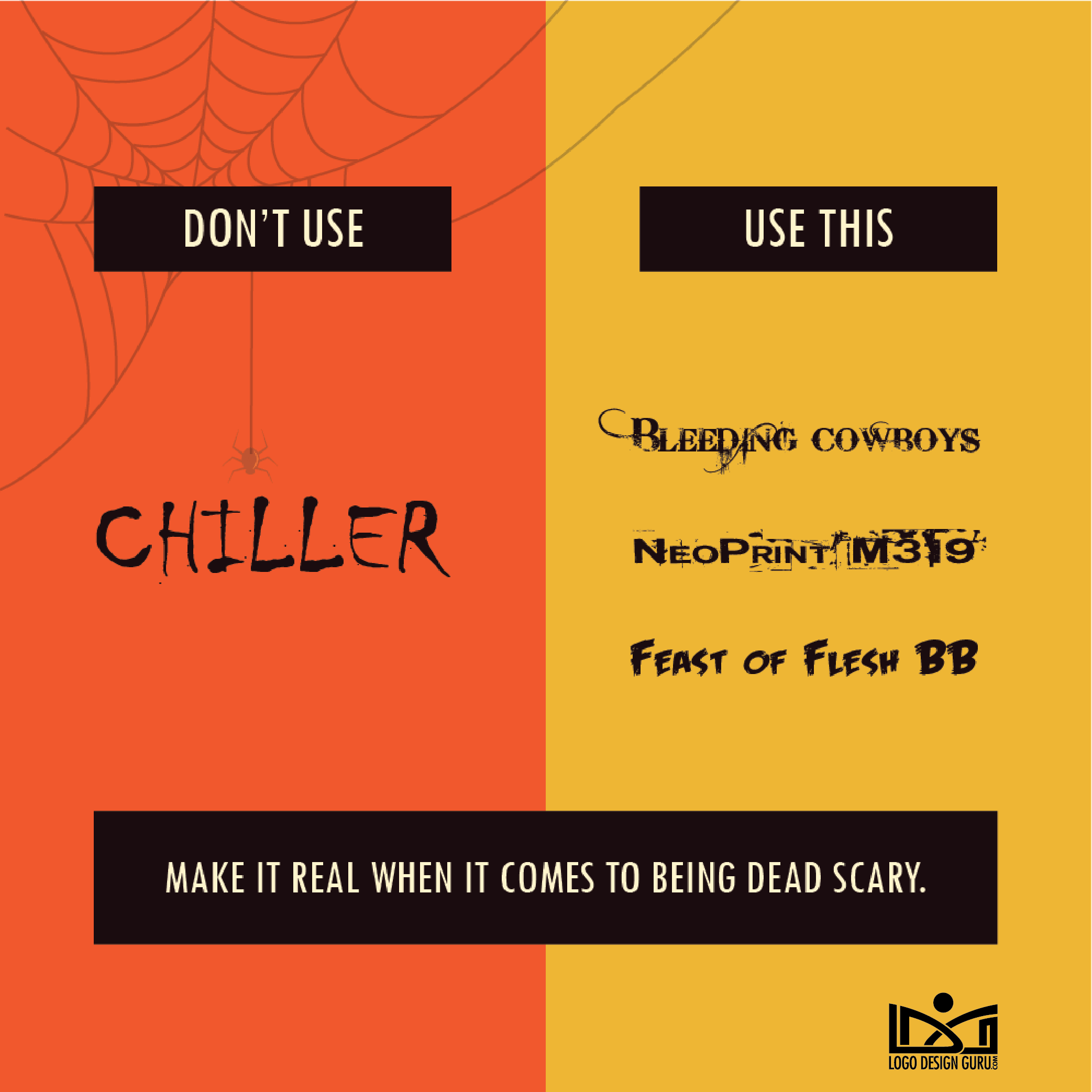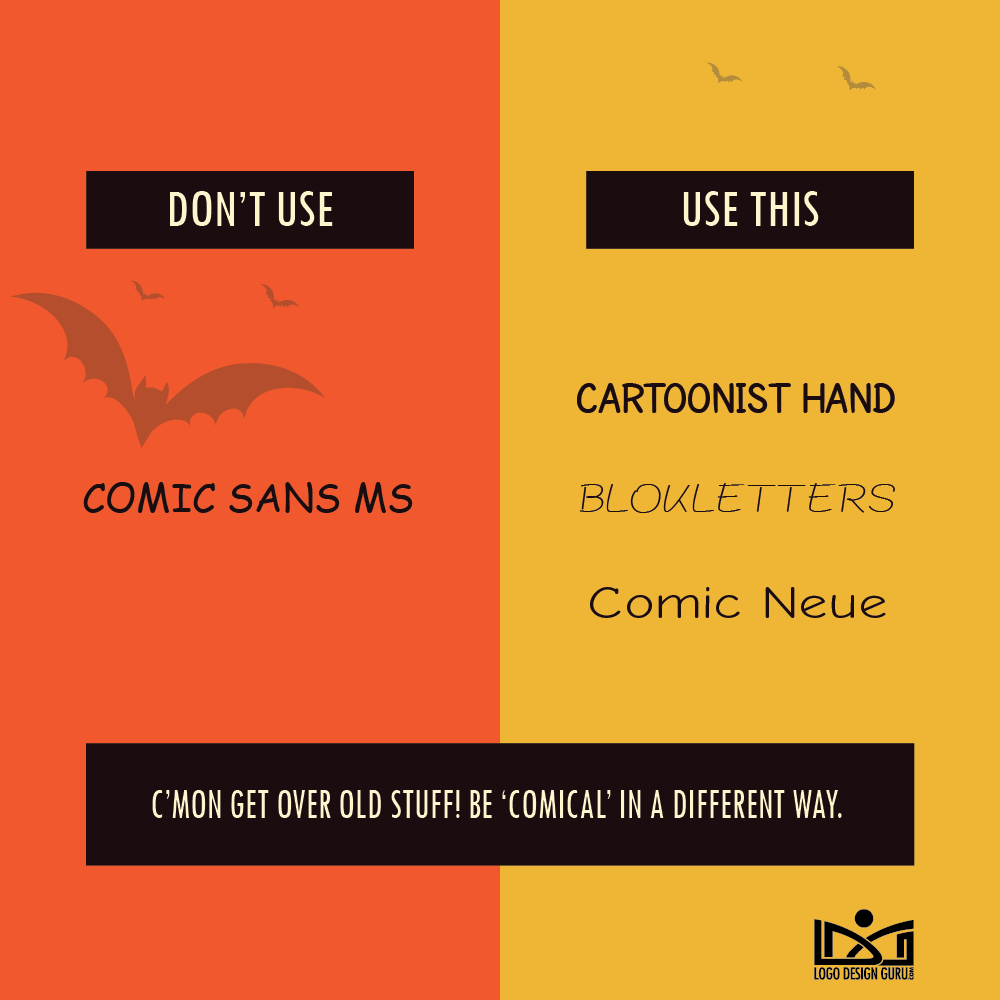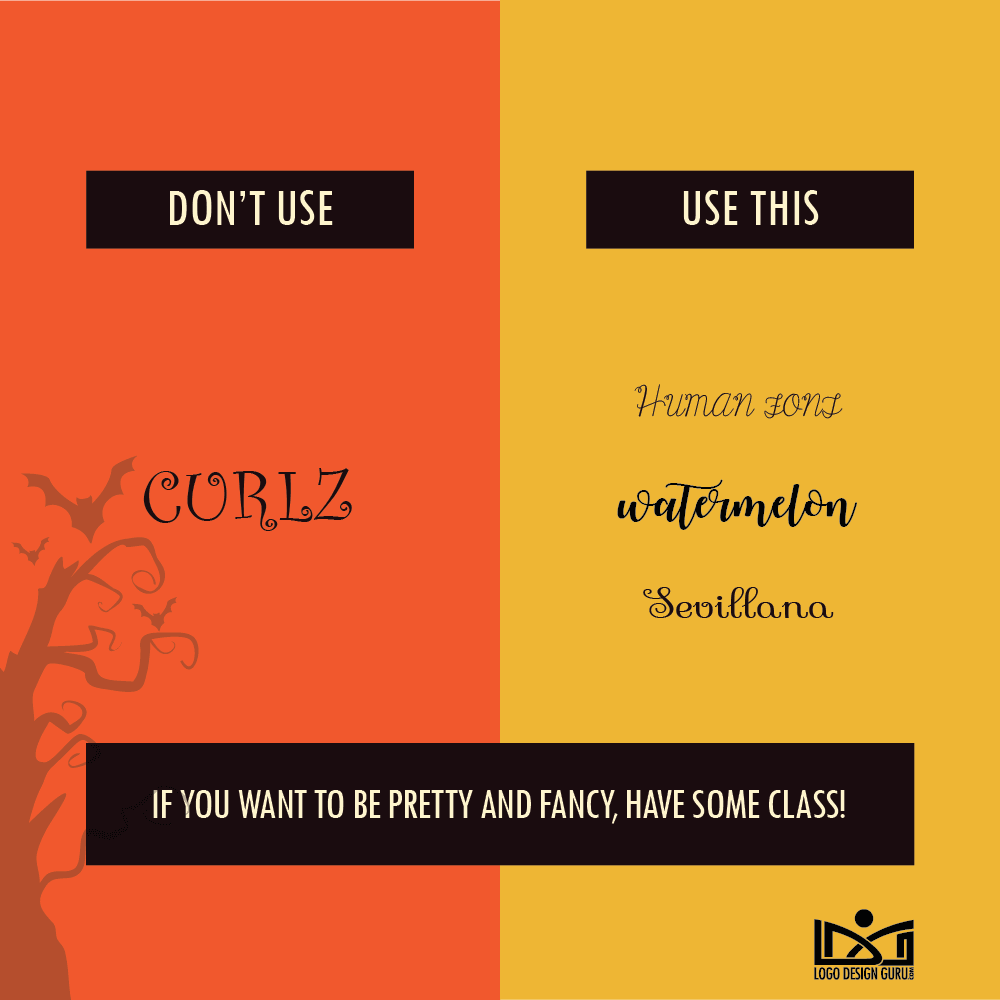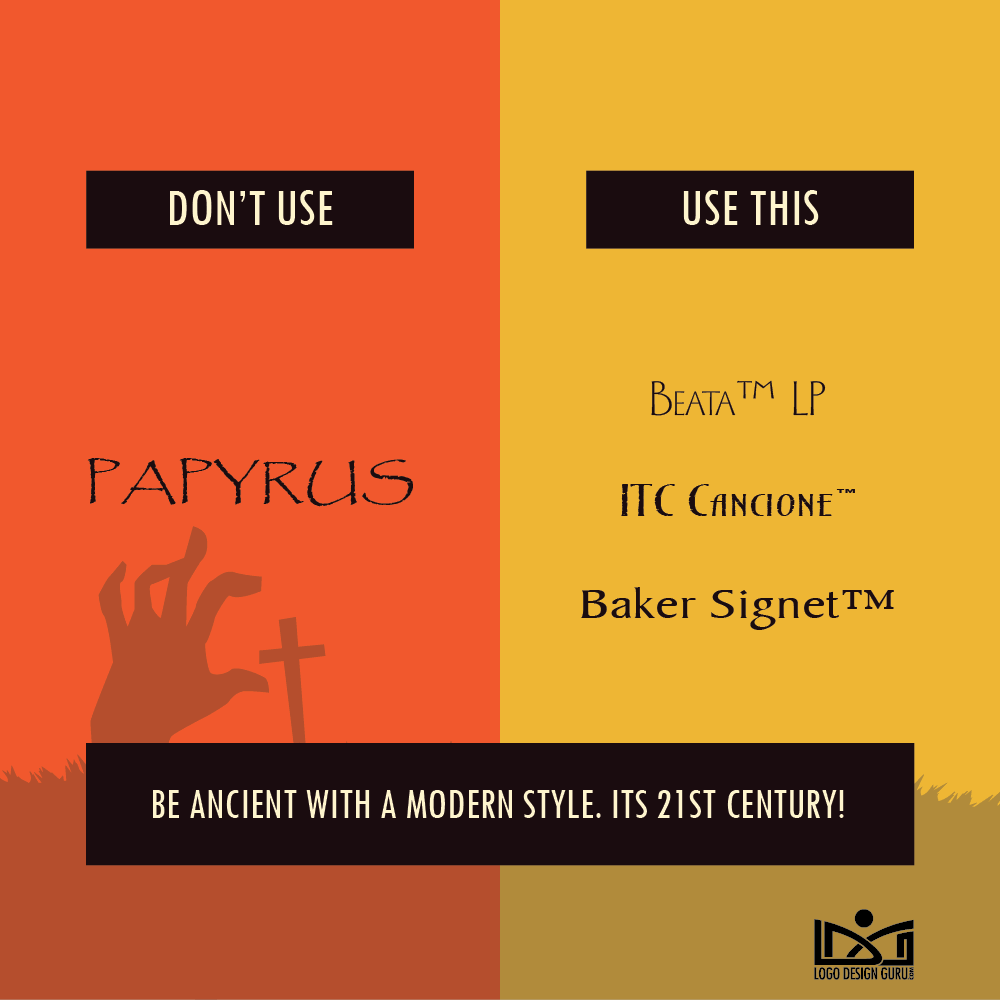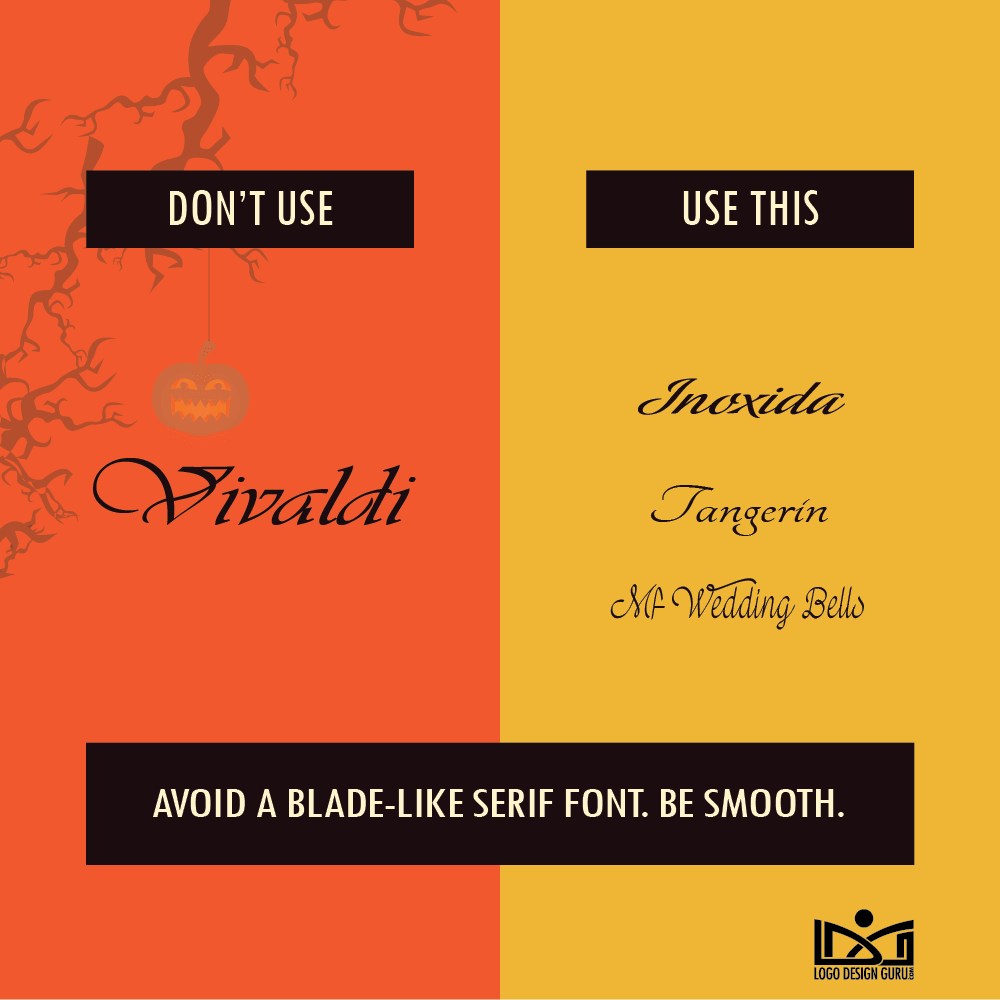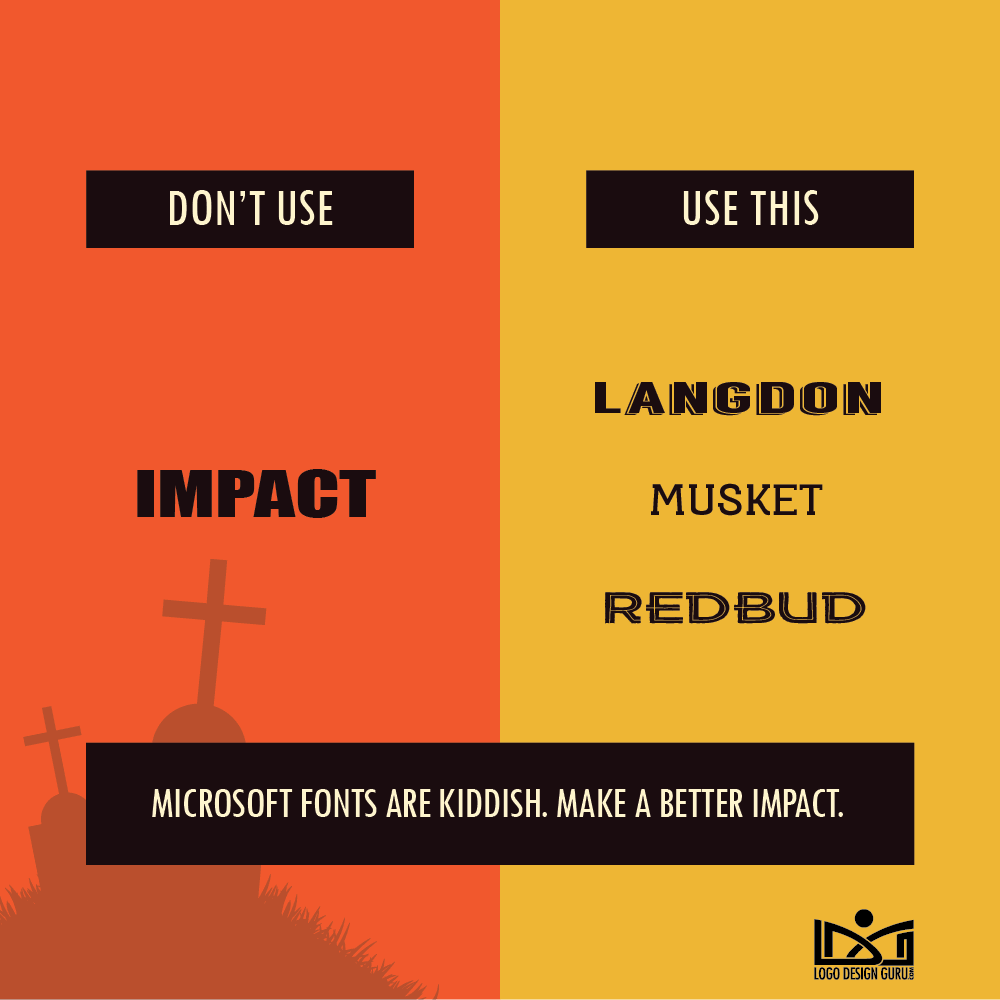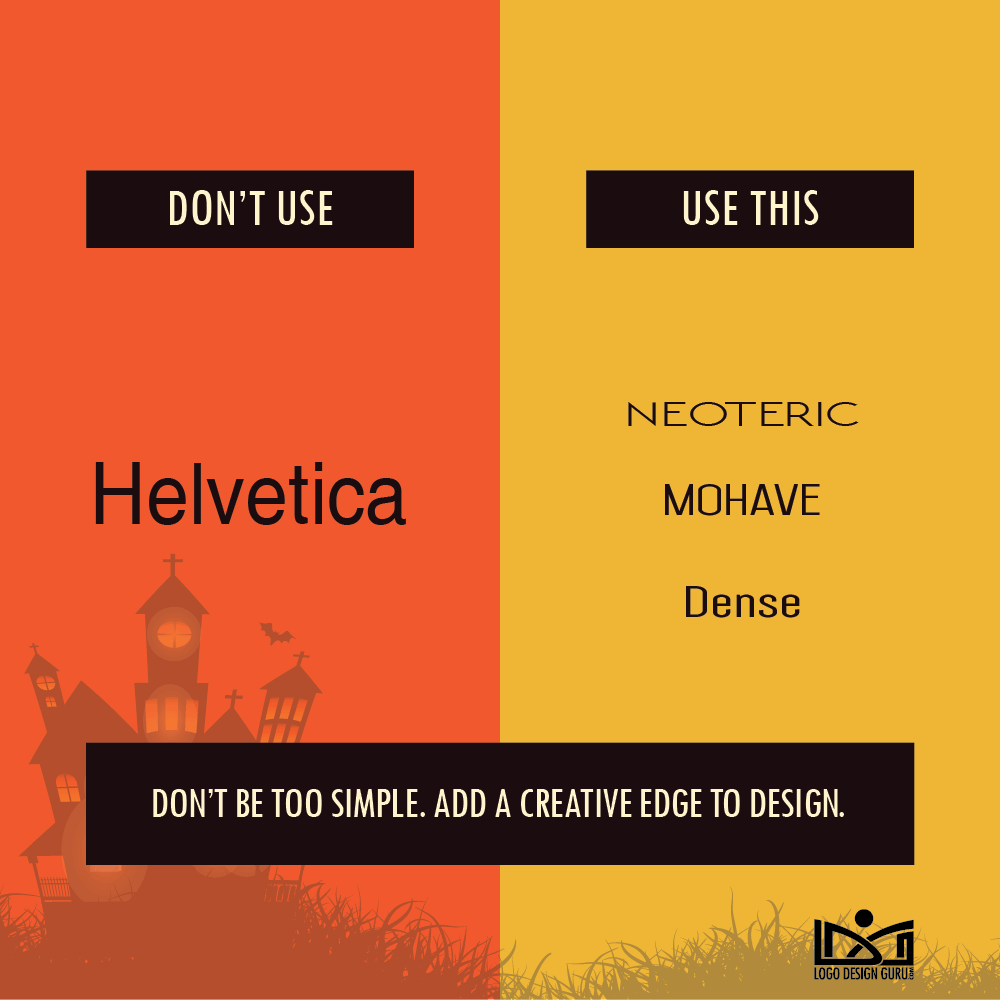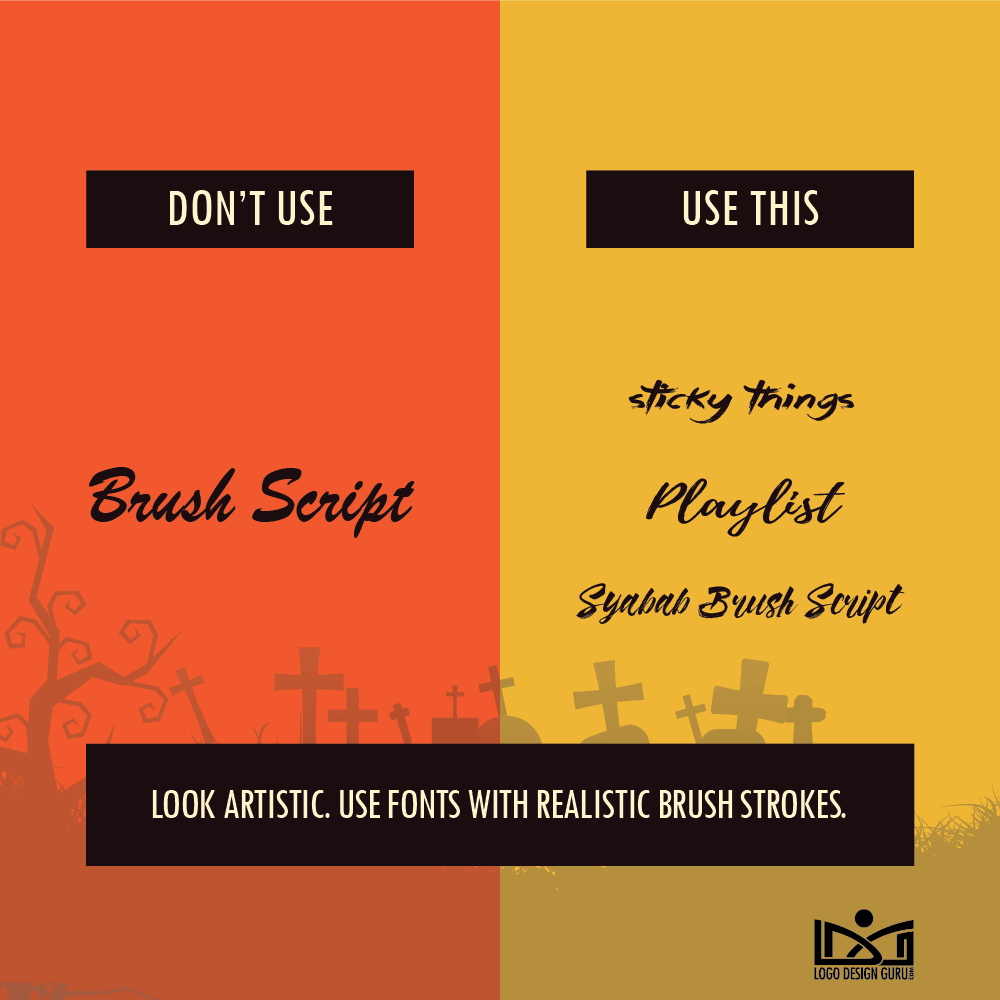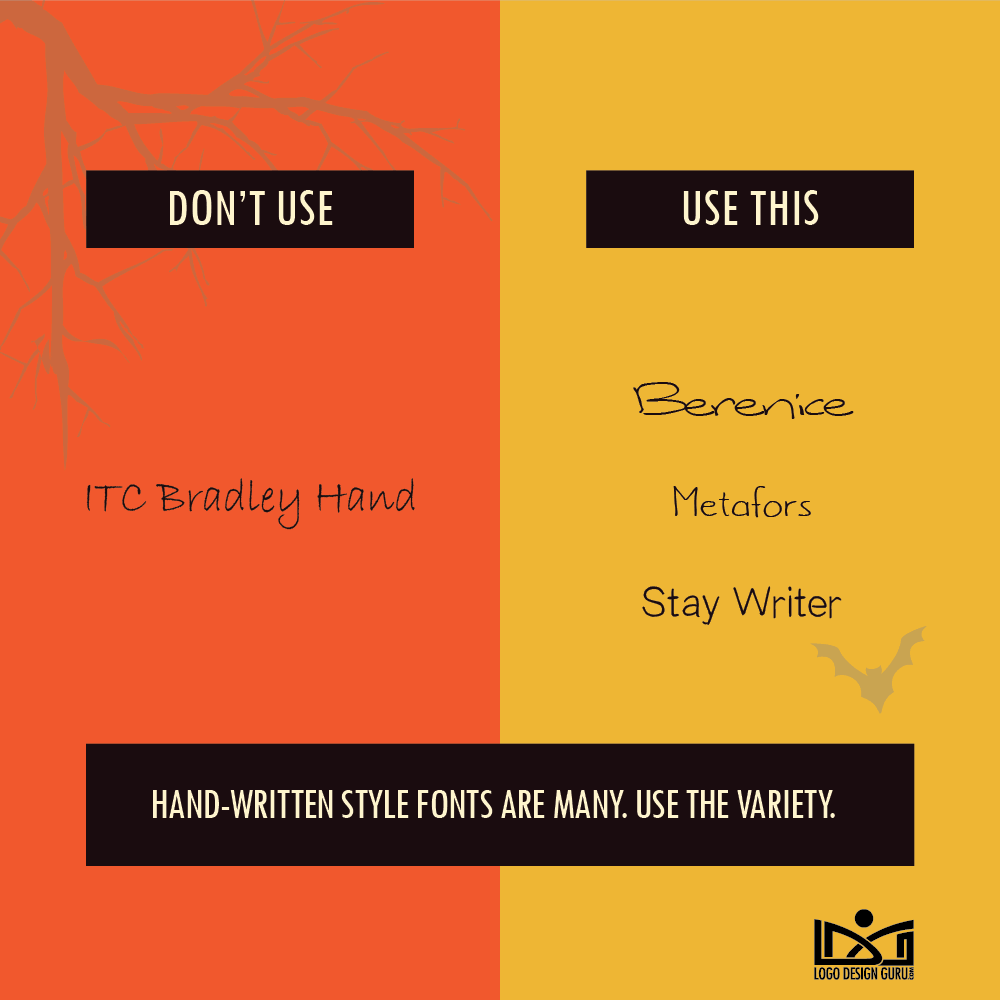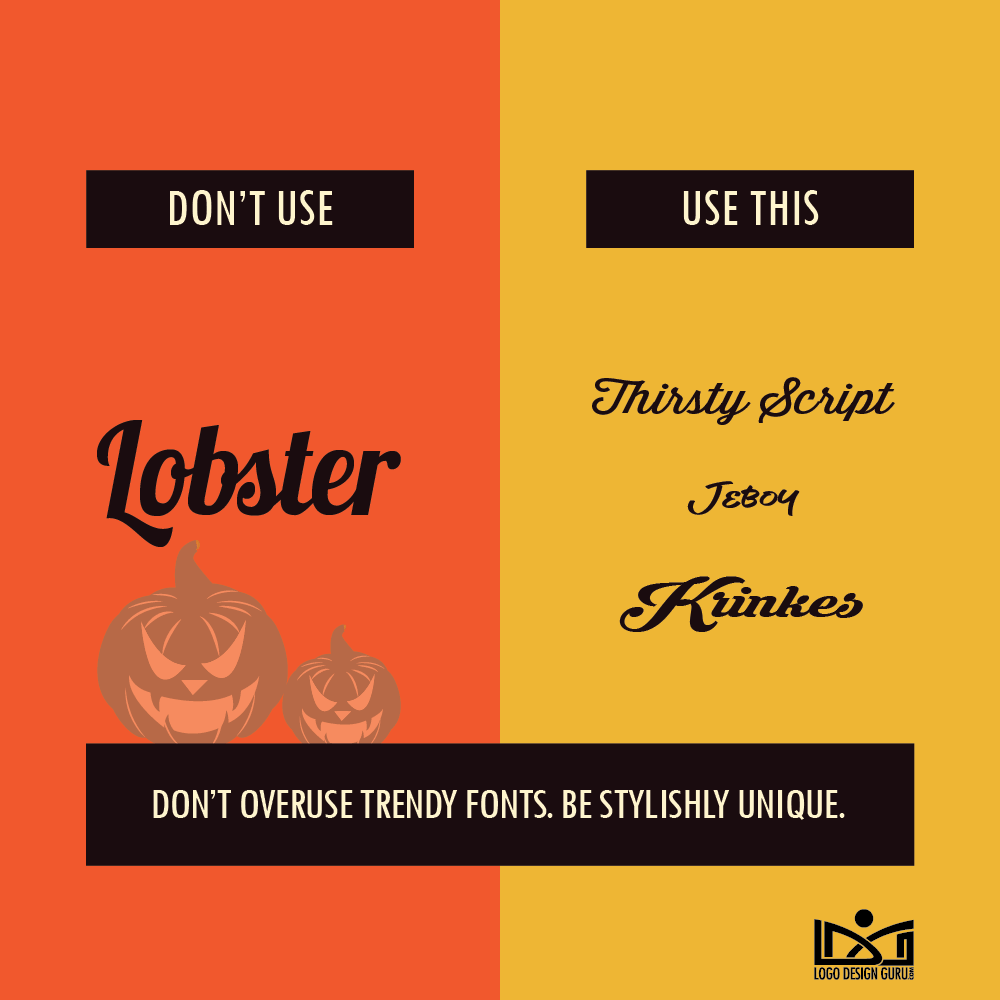
Need some scary fonts for your design? Are you scared with Papyrus & comic sans? and If you are, this post actually for you here are we have hosted horrifying fonts “must never be used” in any of your works – unless you’re planning to scare someone. Designs knows the Typography plays an important role and is an integral part of any design; be it print or web. These fonts that will definitely give you the chills if you’re a graphic designer and creating horrifying design. Logo Design Guru put together this collection of the ten scariest fonts for your designs.
10 Horrifying Fonts That Give Graphic Designers Shudder!